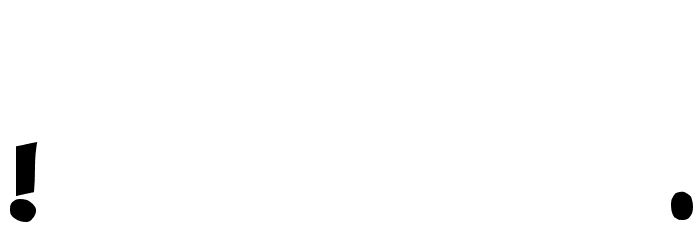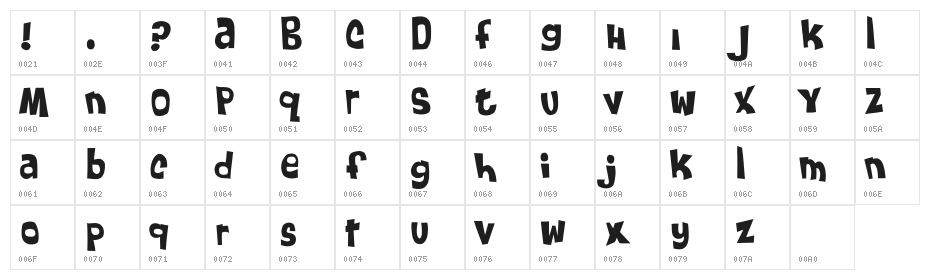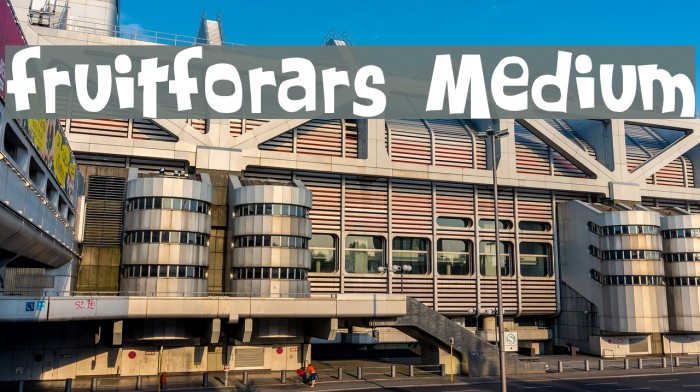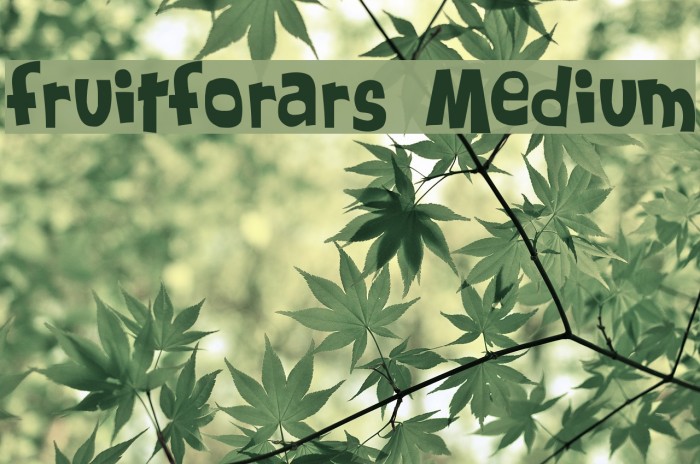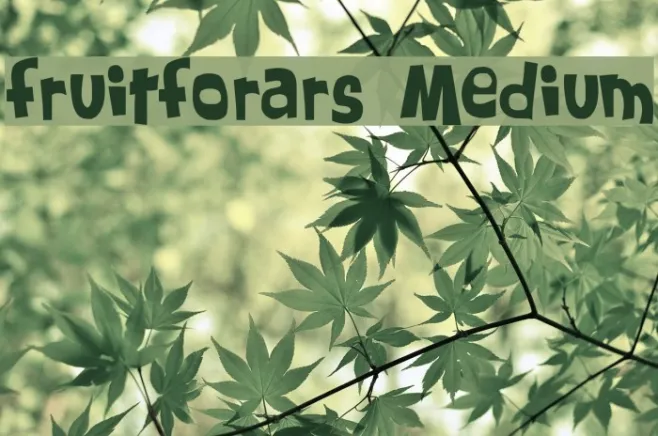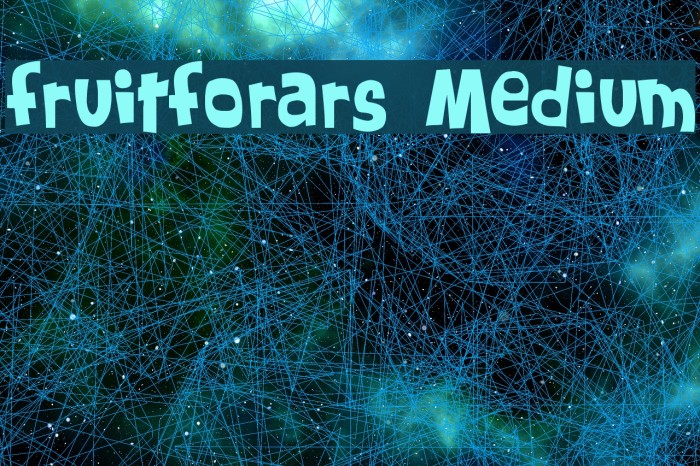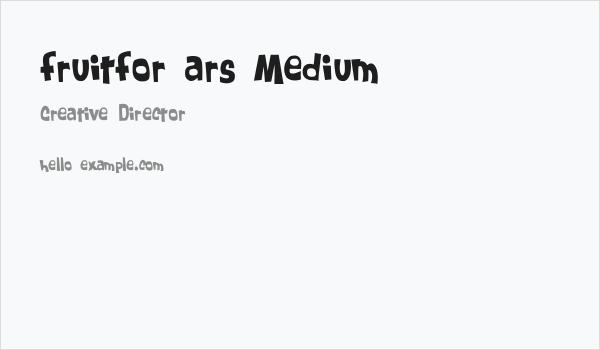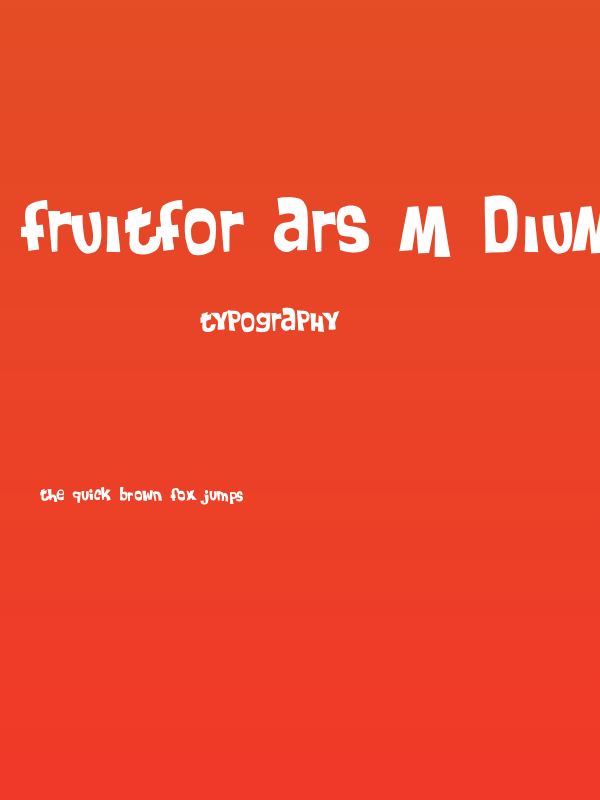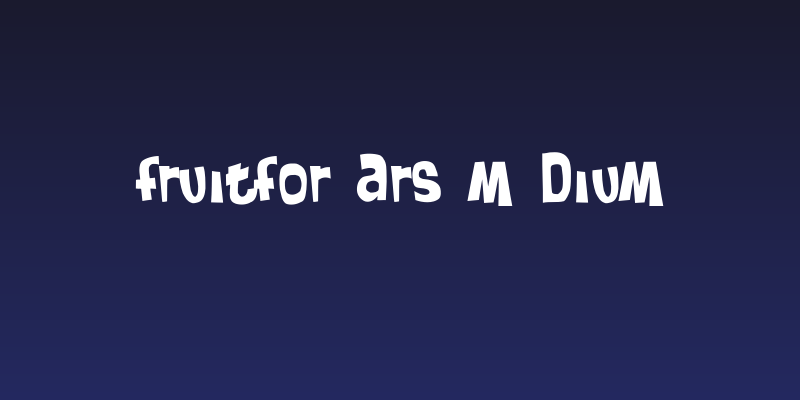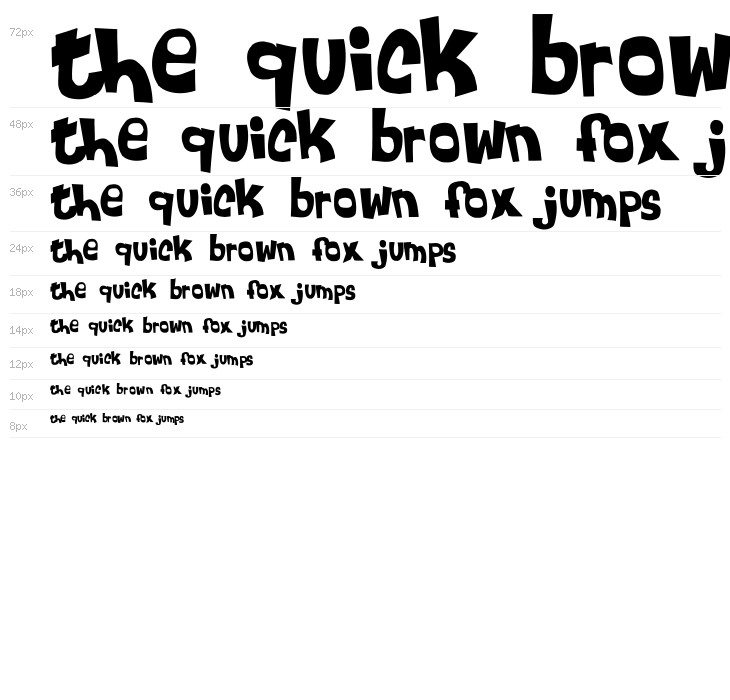
FruitForEars Medium Font
FruitForEars Medium Description
This font features a playful and whimsical design, characterized by its bold and irregular letterforms. The letters have a hand-drawn, cartoonish quality with exaggerated curves and varying widths, giving it a lively and dynamic appearance. The uppercase and lowercase letters maintain a consistent style, with some letters having unique, quirky shapes that add to its charm. The font's overall look is informal and fun, making it suitable for creative and lighthearted projects. The spacing between characters is relatively tight, enhancing its bold presence.
| Overall Style | Whimsical |
| Proposed Projects | Ideal for children's books, comic strips, playful branding, and party invitations. |